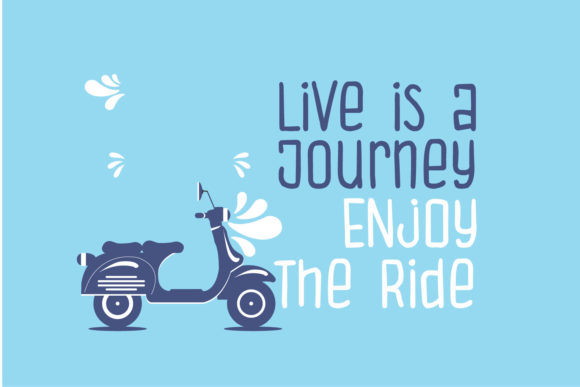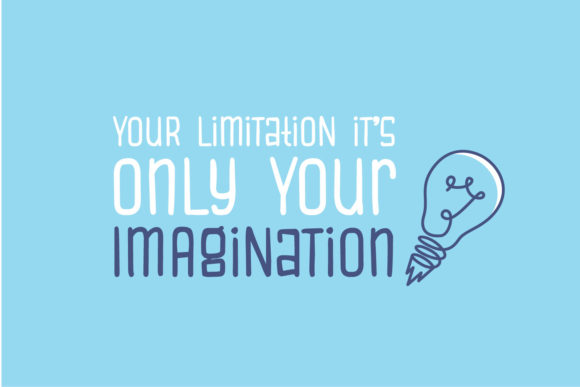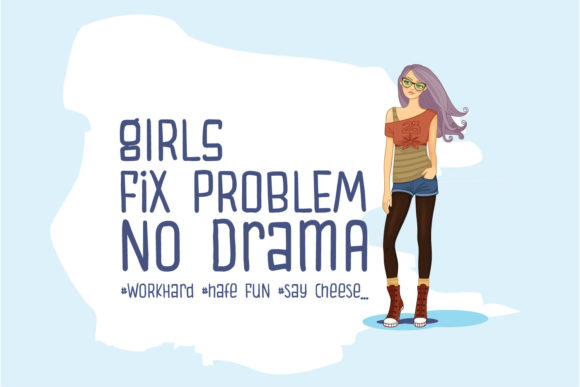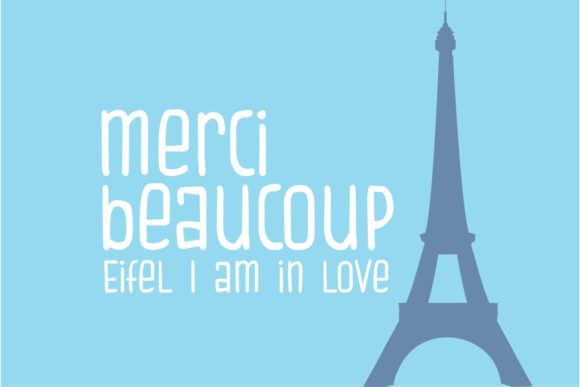
HomeScript FontsEnjoy Font Script Fonts Enjoy Font FacebookXPinterestWhatsApp Enjoy Font Poster 2 Enjoy Font Poster 3 Enjoy Font Poster 4 Enjoy Font Poster 5 About Enjoy Font It’s cute, it’s fun, and it’s mighty tasty: it’s Enjoy! A mixed-case font with lots of combination possibilities. DOWNLOAD NOW People also explored Alligator Split Font Sunder Outh Font Deluxe Font Leaf Font Beauty Flower Font Laugh Font Shailena Font Alesa Font Royal Lailla Font 284 0 TagsEnjoy Font Previous articleBrotherhood FontNext articleFiordland Font LEAVE A REPLY Cancel reply Comment: Please enter your comment! Name:* Please enter your name here Email:* You have entered an incorrect email address! Please enter your email address here Website: Save my name, email, and website in this browser for the next time I comment. Personal Use Free Ontel Personal Use Free Read more about this font Legacy Personal Use Free Read more about this font Mixed Artistry Personal Use Free Read more about this font Autumn Flowers Font Personal Use Free Read more about this font BLOG Elegant Wedding Invitation Fonts – Handwritten & Script Fonts Elegant Wedding Invitation Fonts Your wedding day is one of the most important moments of your life, and every detail matters—including your invitation design. Our... Where to Buy American Fonts Online in 2024 Fonts That Capture the Spirit of New York City Modern Sans-Serif Fonts That Brands Love in 2025